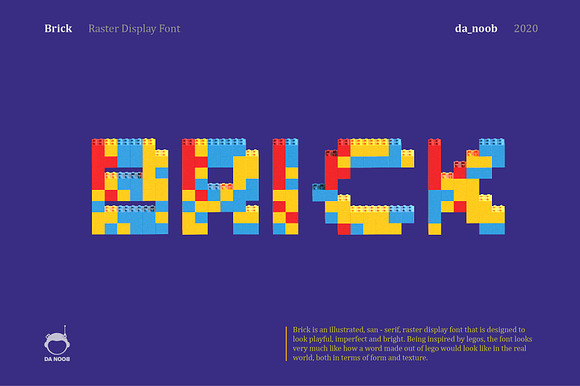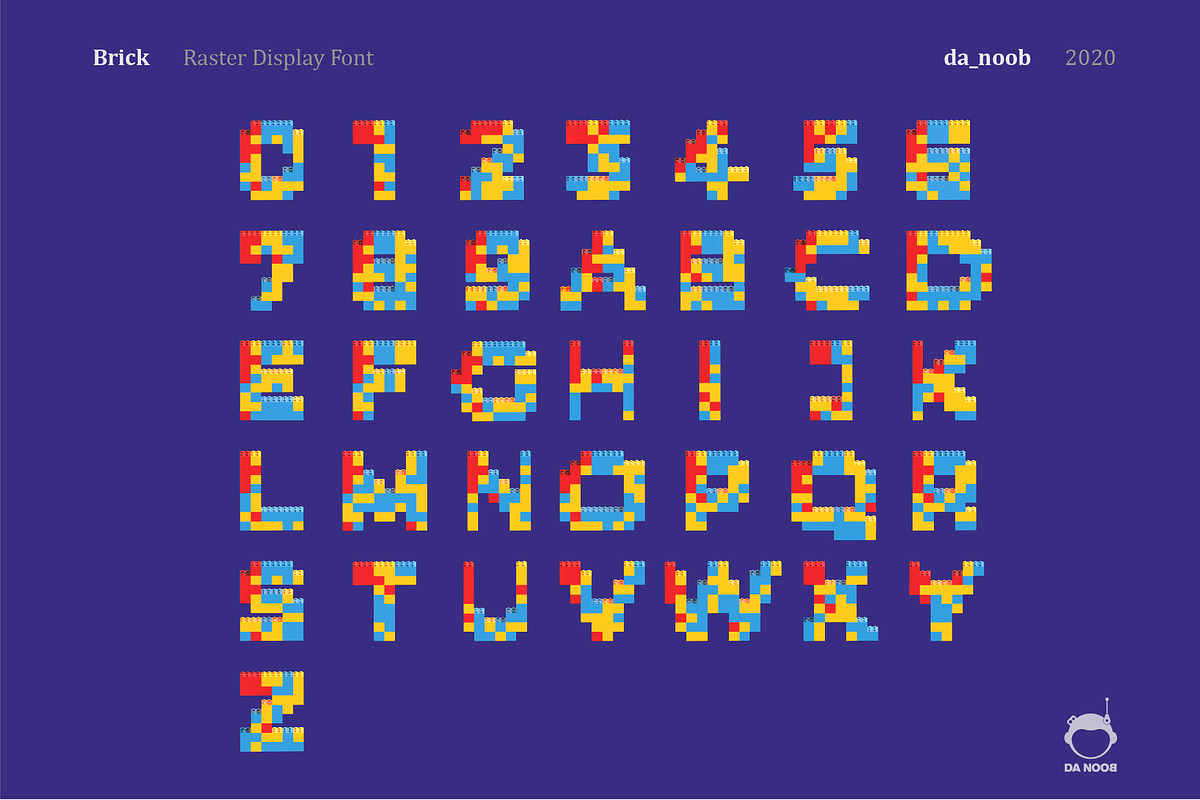
Brick - Raster display font
Brick is an illustrated, san - serif, raster display font that is designed to look playful, imperfect and bright. Being inspired by lego, the font looks very much like how a word made out of lego would look like in the real world, both in terms of form and texture.
Thought the font has distinct use cases depending on the creator, it can be best used for headings, short words and illustrative typographic projects.
PLEASE NOTE that this is a display font.
1. The font does not contain special characters and small alphabets.
2. Each alphabet can be scaled to 1500px 1500px without loosing the quality.
4. This is not a vector font.